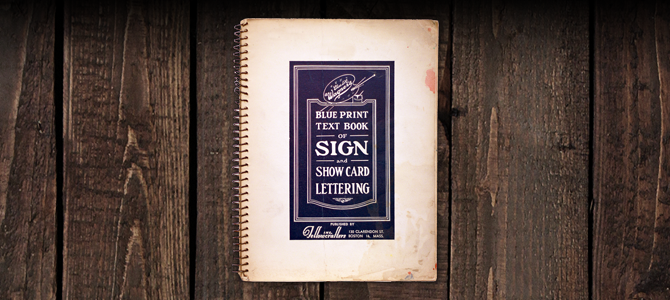
Blue Print Text Book of Sign and Show Card Lettering - Charles L.H. Wagner - 1946
This is an enlarged reprint of the 1926 original publication by Charles L.H. Wagner. Is it one of the quintessential sign books that every collector, craftsman and enthusiast involved in the trade should have and should know well. There are few books that give such detailed and in depth instruction as this one, both visually and through written word. Wagner's sole book is easily in my top five favorite books in the Lettering Library canon.